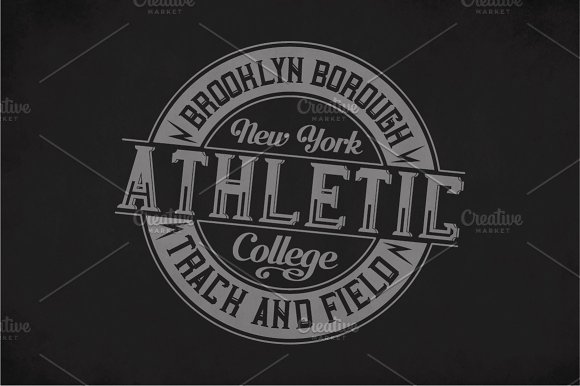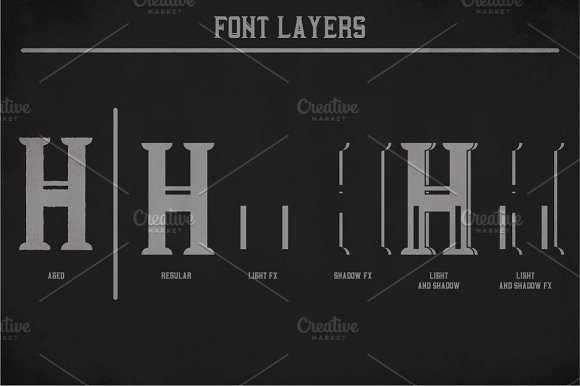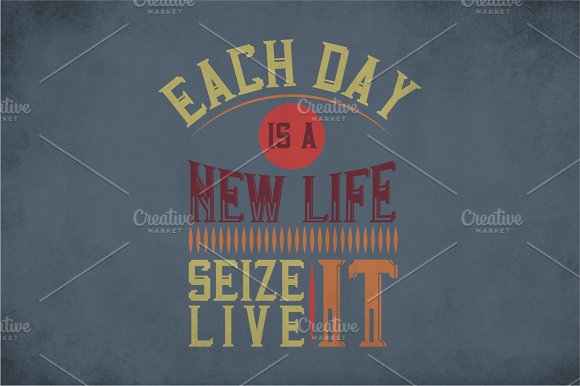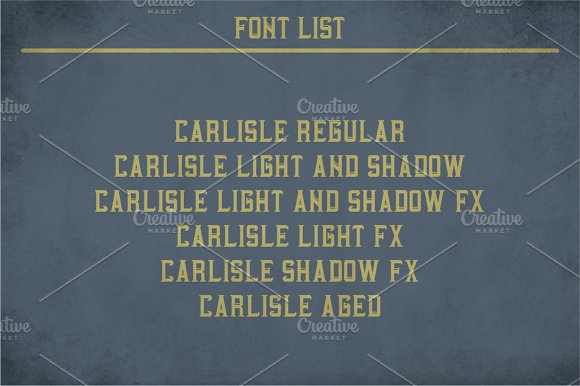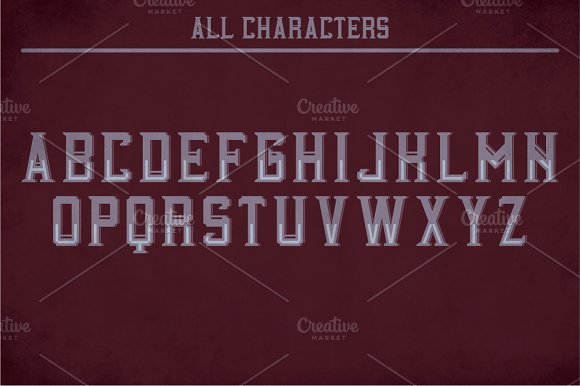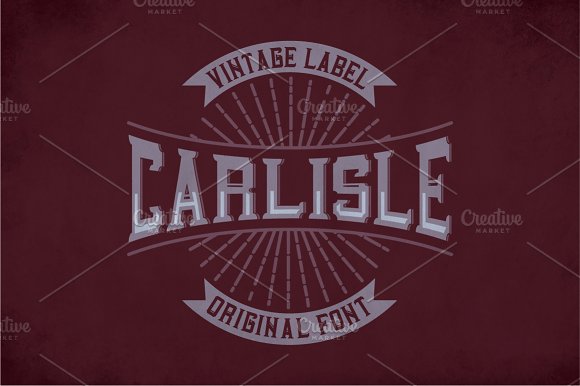
Carlisle Label Typeface
Introducing a vintage look label typeface named “Carlisle”. It’s made in strong and vintage label style. Typeface is good viewed on any labels design.